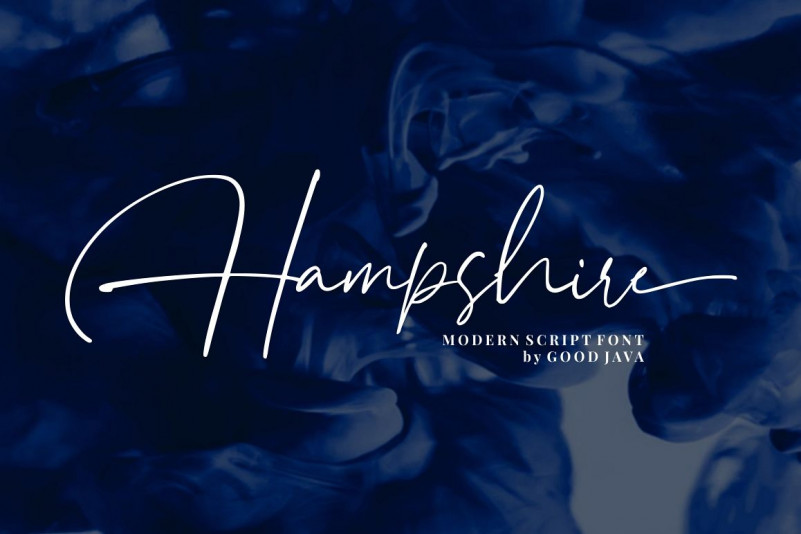
Hampshire Font
Hampshire – Modern Script Font is a natural & modern handwritten font. I’ts Perfect for logo, invitation, stationery, wedding designs, social media posts, advertisements, product packaging, product designs, label, photography, watermark, special events or anything.